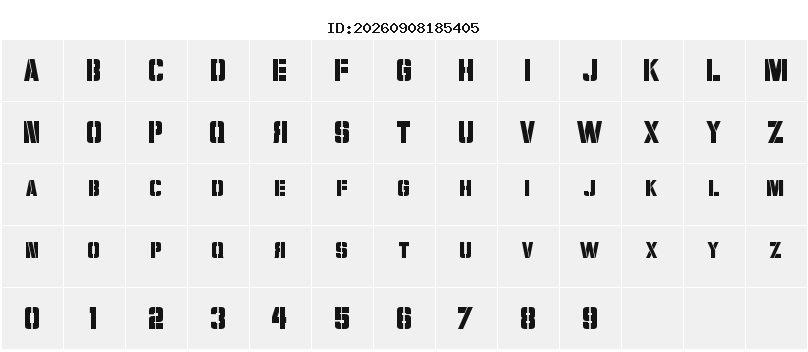
Volkoff Preview
• Font Name: Volkoff
• Full Font Name: Volkoff
• Version: Version 1.10 February 19, 2016
• Designer: Neale Davidson
• Manufacturer: Pixel Sagas
About Volkoff.otf
Volkoff.otf is a modern, elegant sans-serif font designed for ultimate readability and visual harmony. Perfect for branding, headlines, web design, and print materials.